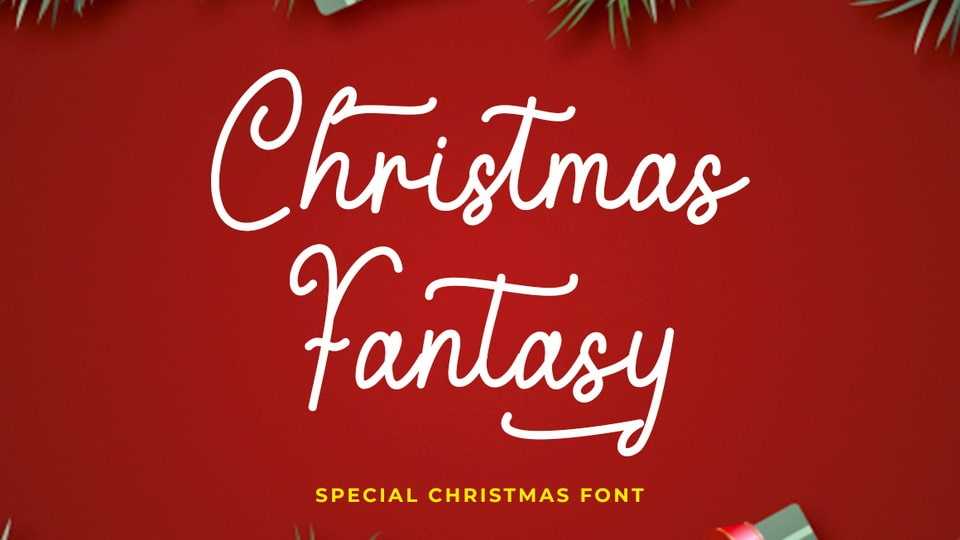
Download Christmas Fantasy font, a warm and whimsical monoline script typeface designed to bring holiday magic to every project. Its smooth, flowing strokes and gentle handwritten style capture the cozy spirit of Christmas.